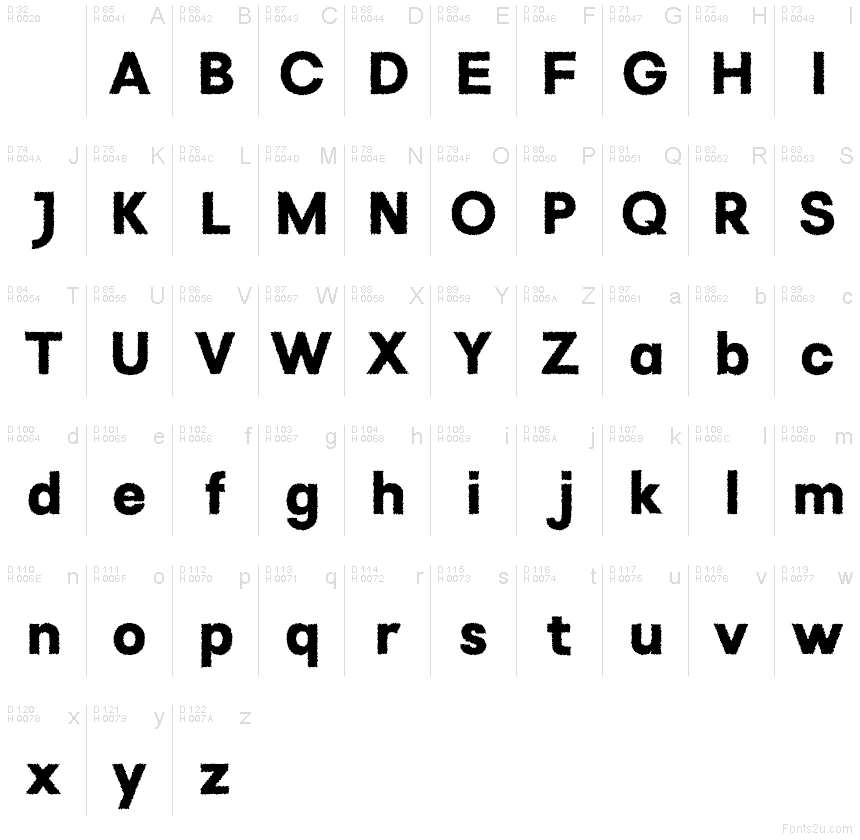
Radeil Rough Regular Demo
Radeil Rough font by Craft Supply Co. is a bold, eroded display font with a textured, organic feel. Its rugged appearance and vintage vibe offer a handcrafted look that stands out. This unique typeface effortlessly adds character and depth to any project, making it an ideal choice for those seeking something distinctive.
Use Radeil Rough in posters, headlines, banners, signage, branding materials, album covers, book titles, packaging design, apparel design and promotional material. The free display font also works great for building visual identities or commercial advertisements since it will grab attention at first sight!